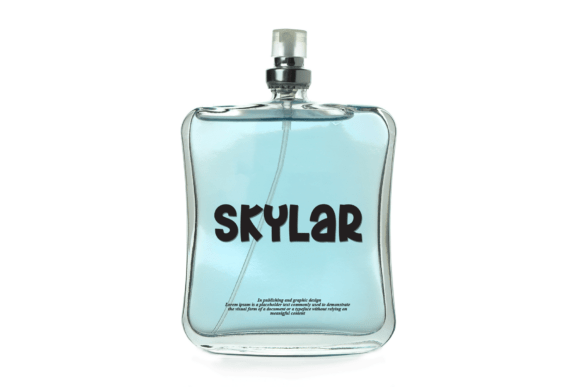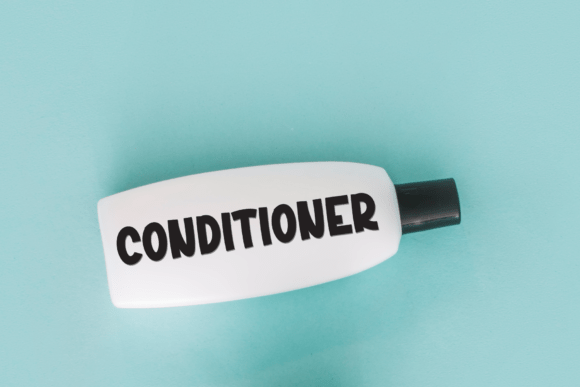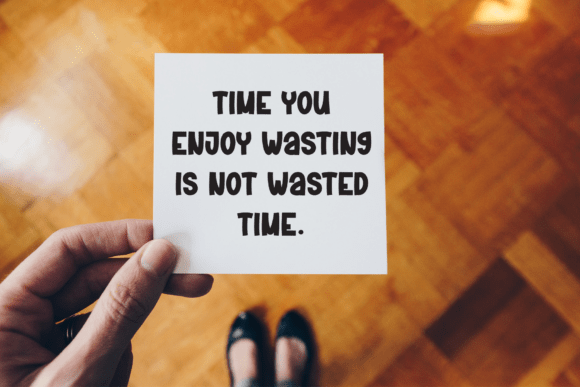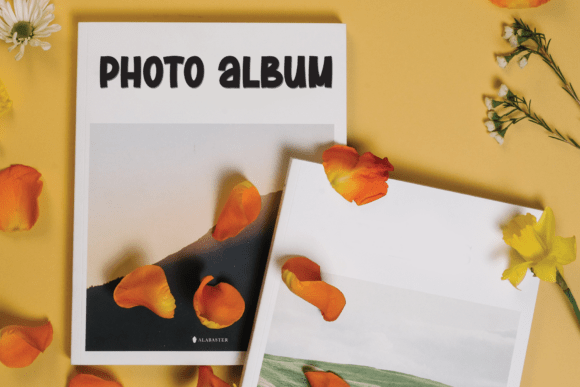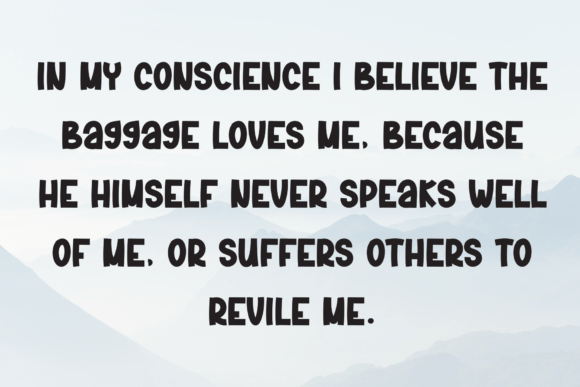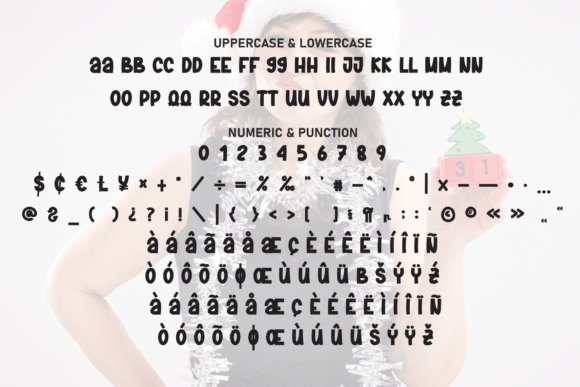
Get Ready to Jingle All the Way with the Chubby Christmas Font
It’s that time of the year again – the season of giving, sharing, and creating magic. As a designer, you’re probably brainstorming ideas for your brand’s holiday campaigns, and I’m sure you’ve been searching for the perfect font to capture the essence of the festive season. You know that feeling when you stumble upon a font that perfectly embodies the spirit of your design? That’s exactly what I’m excited to share with you today – the Chubby Christmas Font, a delightful display font that’s sure to add a warm and inviting touch to your designs.
With its clean lines, balanced letterforms, and subtle rounded edges, the Chubby Christmas Font is a versatile and charming addition to any design. Whether you’re working on branding, headlines, packaging, or digital content, this font delivers clarity and charm in equal measure. Its polished finish makes it an ideal choice for designers looking to add a modern twist to their holiday designs.
Chubby Christmas Font Key Features
- Unique Characteristic: The font features a playful, rounded design with a ‘chubby’ feel, perfect for festive and fun applications
Designer Review: Chubby Christmas Font
Overall, the Chubby Christmas Font has a certain charm to it ✨. The rounded edges and playful feel of the letters make it perfect for festive projects like holiday cards, gift tags, or social media posts. The font is quite versatile, and its weight is just right for creating a fun and whimsical atmosphere.
Here are some of the things I like about this font:
- Its rounded edges give it a friendly, approachable feel ✨
- It’s perfect for creating a festive, holiday atmosphere ✨
- The font is highly legible, even at smaller sizes ✨
However, there are some limitations to consider ⚠️:
- The font may be too playful or childish for more serious projects ⚠️
- It may not be suitable for formal or business-related projects ⚠️
- The font’s design may be too simplistic for some users’ tastes ⚠️
Overall, I think the Chubby Christmas Font is a great choice for designers looking to add some festive flair to their projects. While it may not be perfect for every situation, it’s a fun and versatile font that’s sure to bring a smile to users’ faces.
Getting the Most Out of the Chubby Christmas Font
To get the most out of the Chubby Christmas Font, consider the following tips:
- Use it sparingly to create a festive atmosphere.
- Pair it with other bold, playful fonts for a fun and playful look.
The Chubby Christmas Font is perfect for:
- Christmas and holiday-themed designs.
- Playful and whimsical designs.